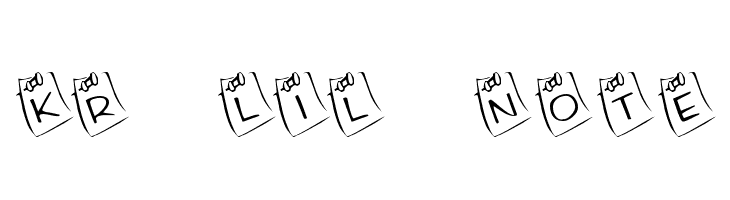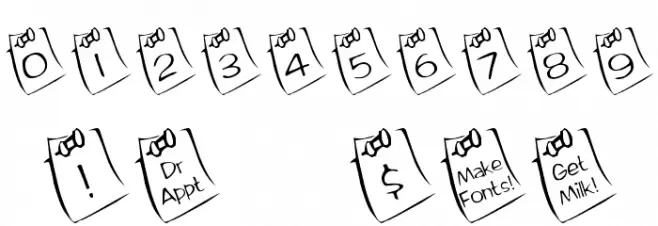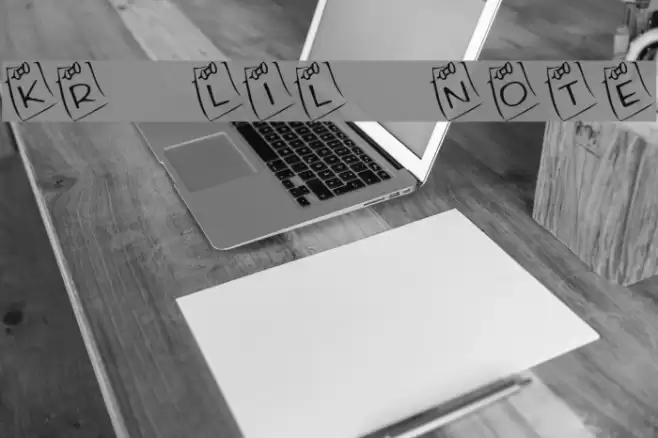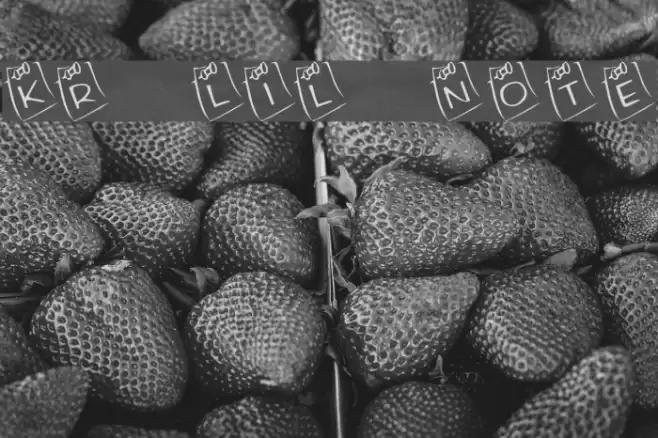
KR Lil Note Font
KR Lil Note Description
This playful and whimsical font features characters that appear as if they are written on small, tilted notepads, each with a tiny bow at the top. The letters and numbers are bold and slightly irregular, giving a hand-drawn, casual feel. The font includes both uppercase and lowercase letters, numerals, and a selection of special characters. Its unique style makes it stand out, with each character maintaining a consistent size and shape, while the notepad design adds a layer of charm and creativity. The overall look is fun and informal, perfect for projects that require a touch of personality and lightheartedness.
| Overall Style | Playful, Whimsical |
| Use Case | Headlines, Creative projects, Informal designs |
| Proposed Projects | Ideal for children's books, playful invitations, scrapbooking, and creative posters. |